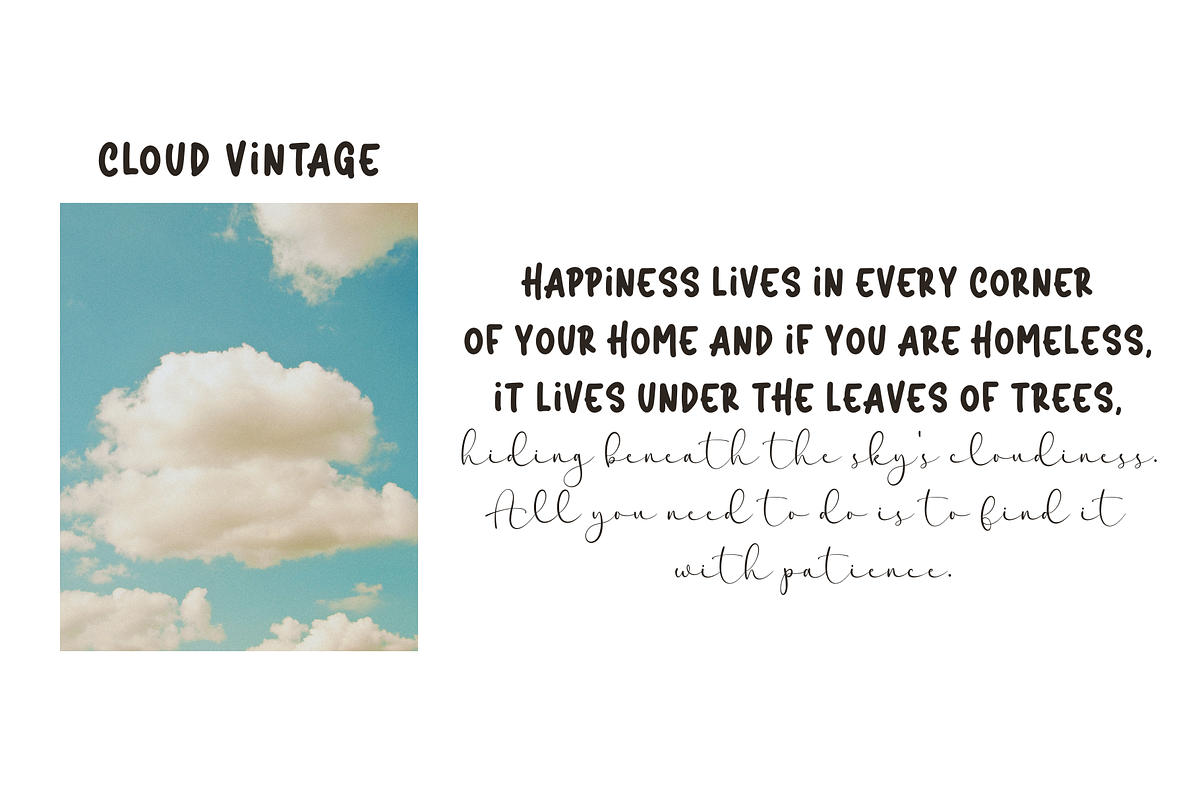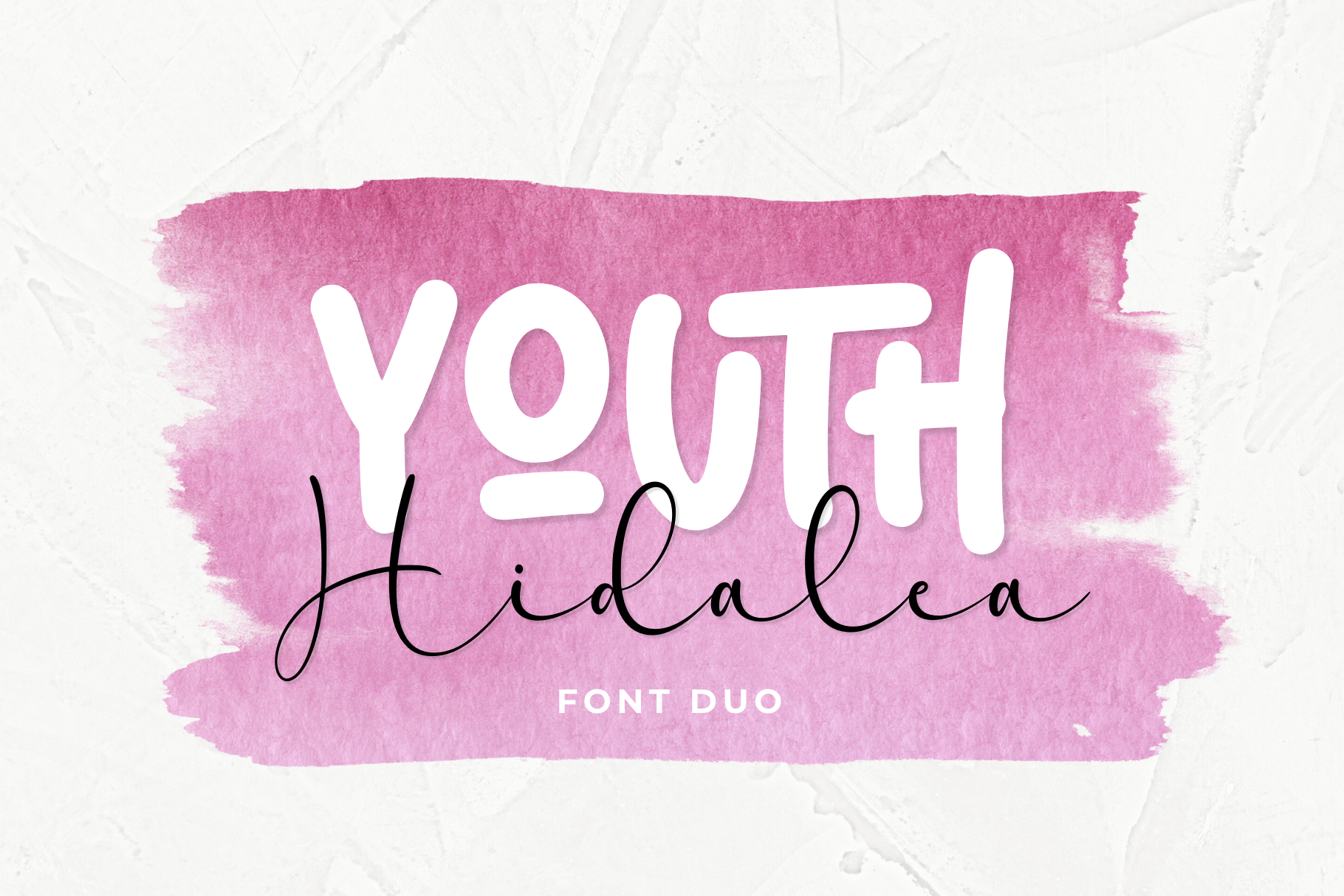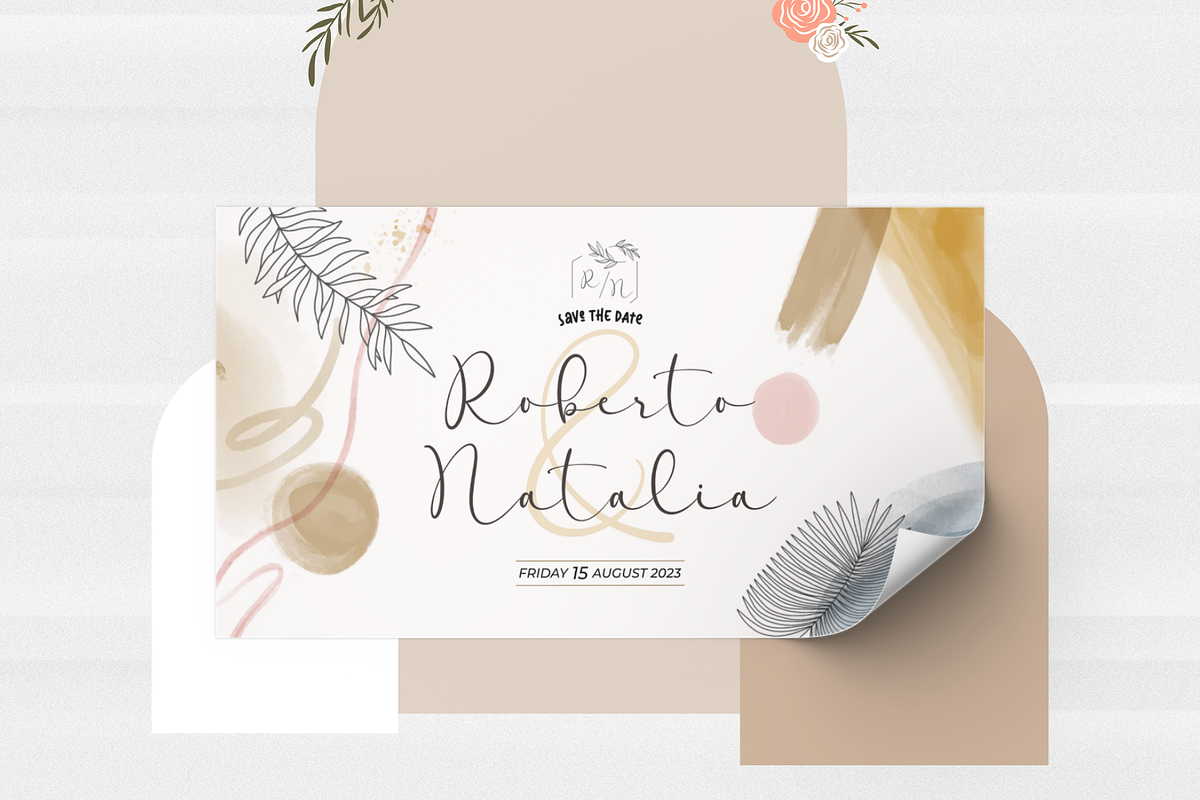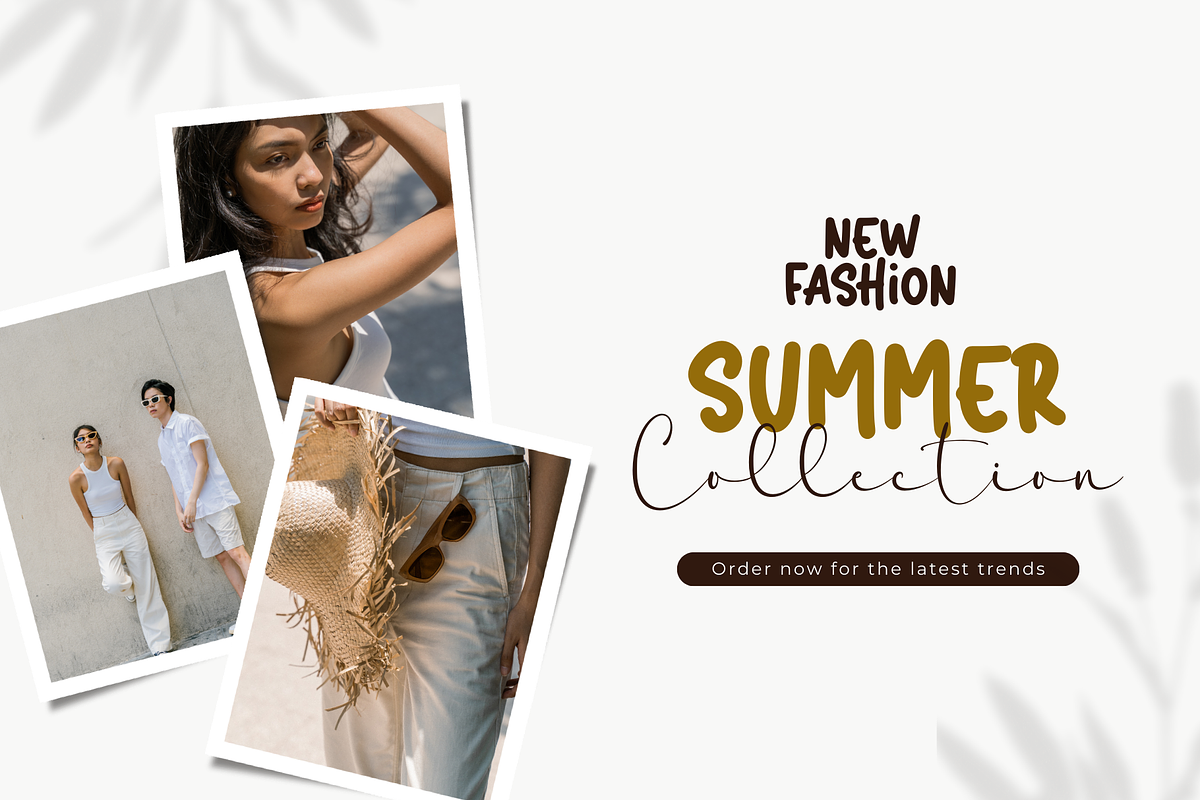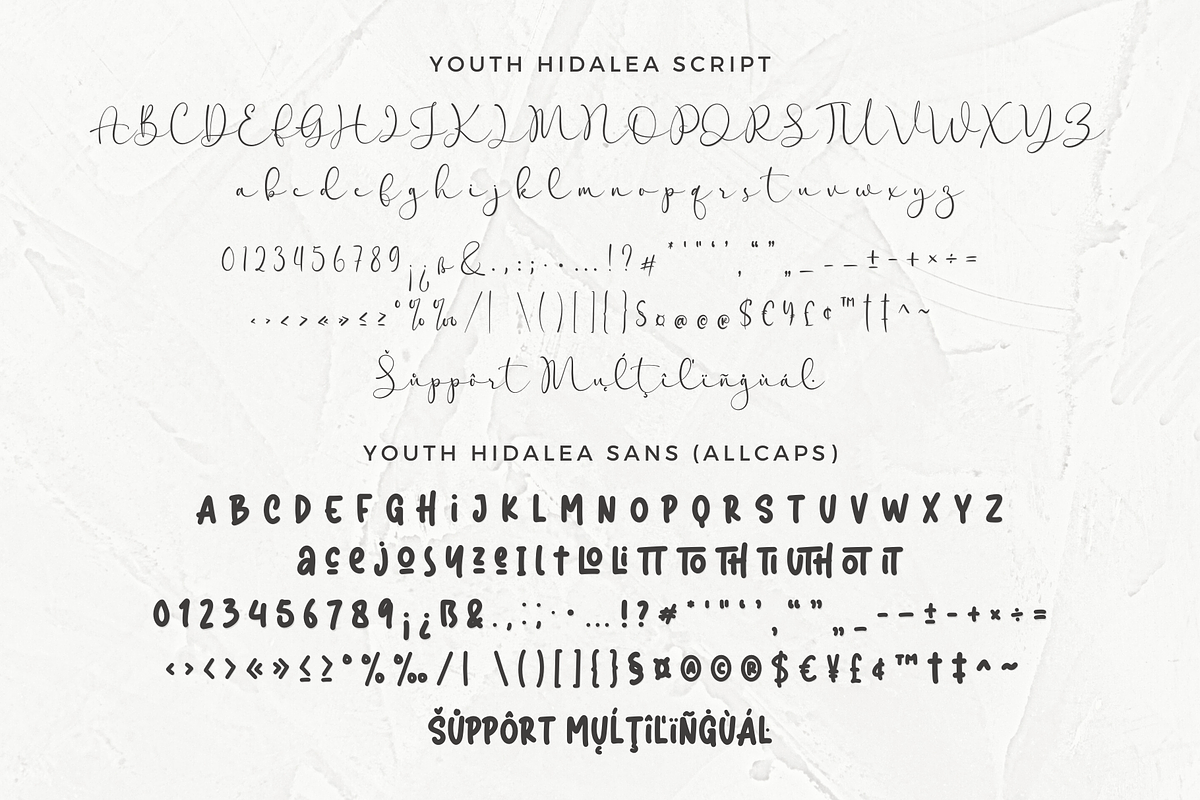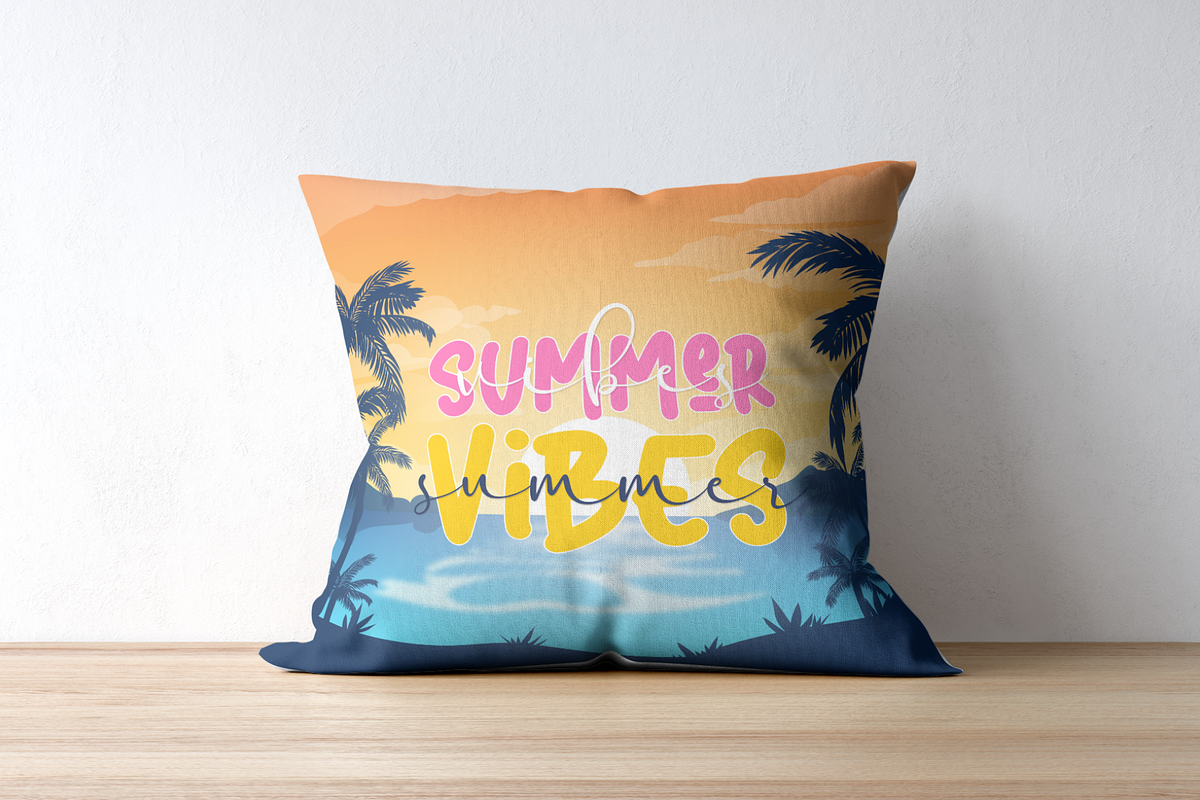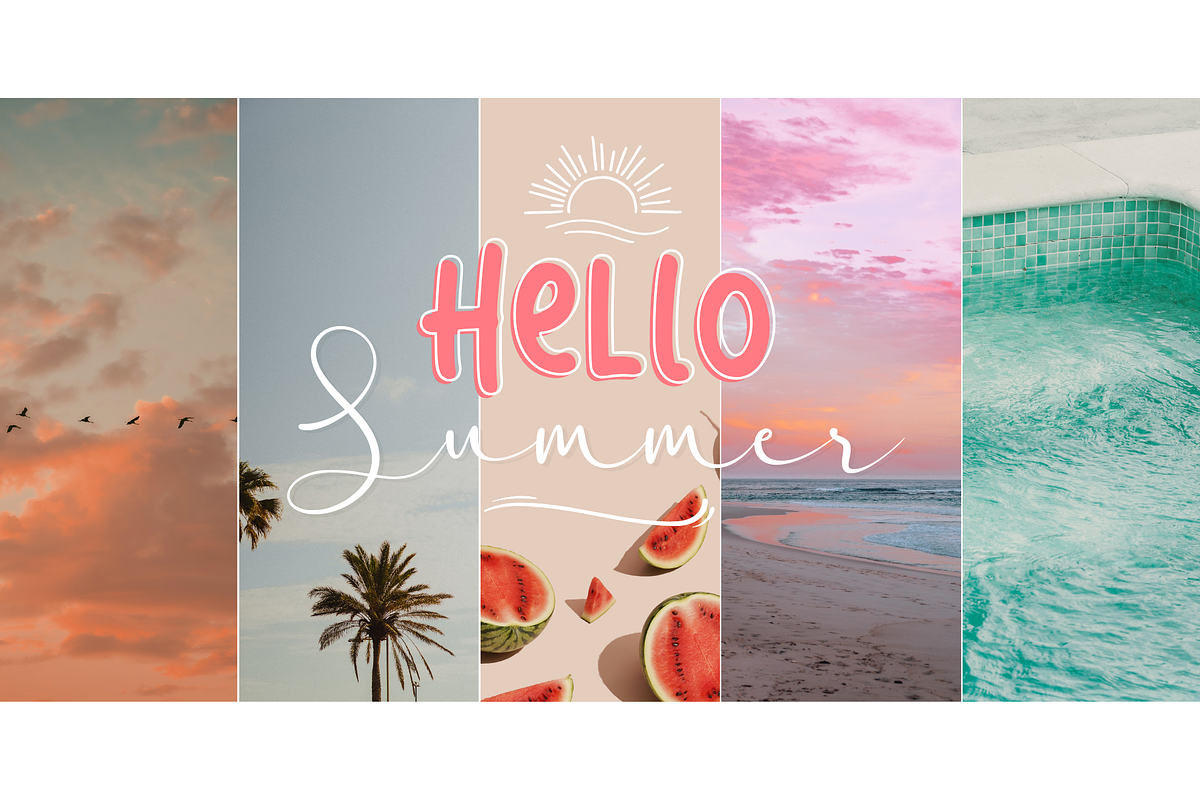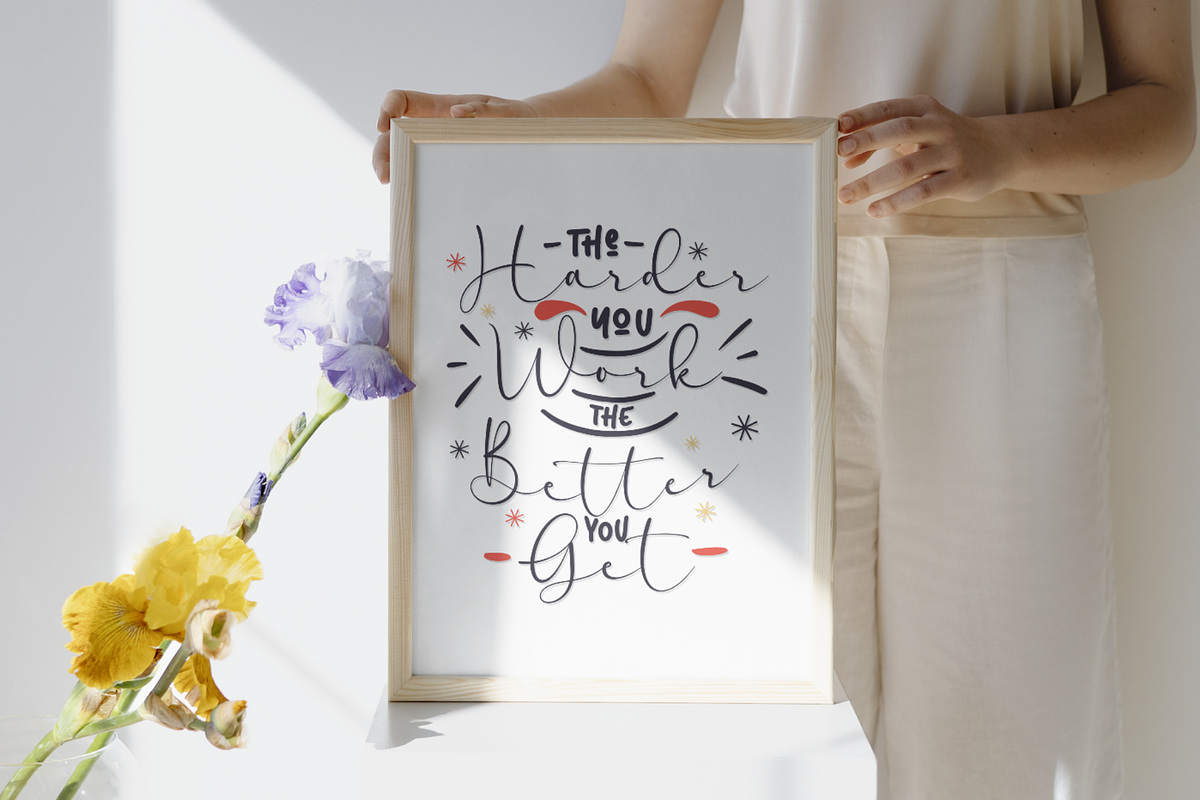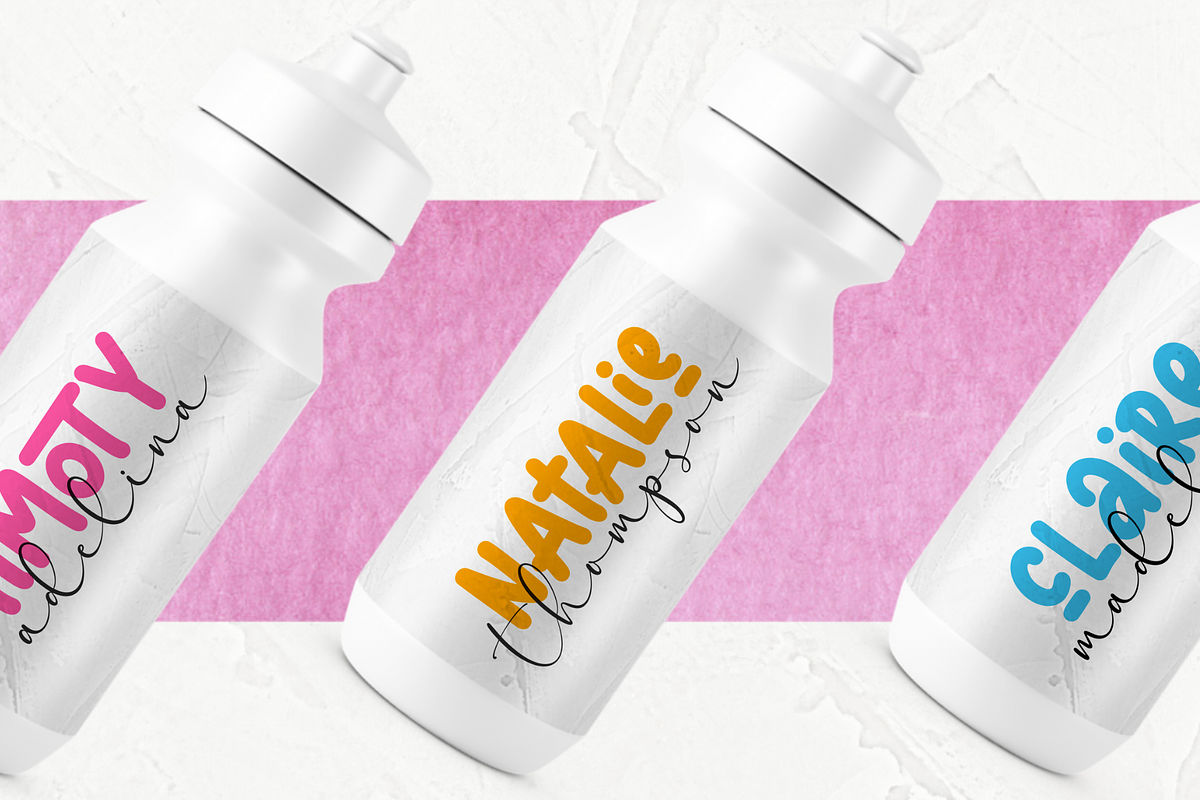
Youth Hidalea - A Stylish Font Duo
Introducing, Youth Hidalea a stylish and playful font duo (script and sans serif) suitable for your design project needs, such as; wedding themes, valentine’s themes, social media posts, quotes, overlays on images, tagline logos, posters, print needs, website banners, and more.
- A set of uppercase and lowercase glyphs
- Number, symbol, and punctuation
- Alternates and Ligatures (sans serif)